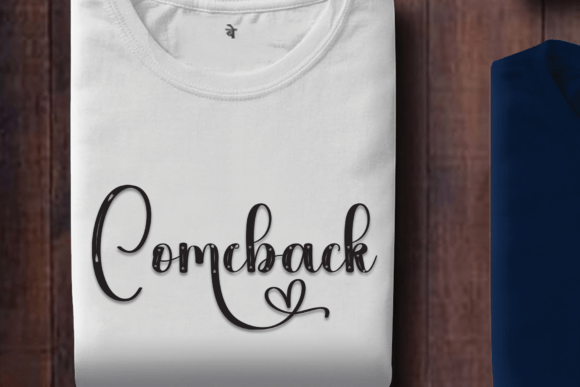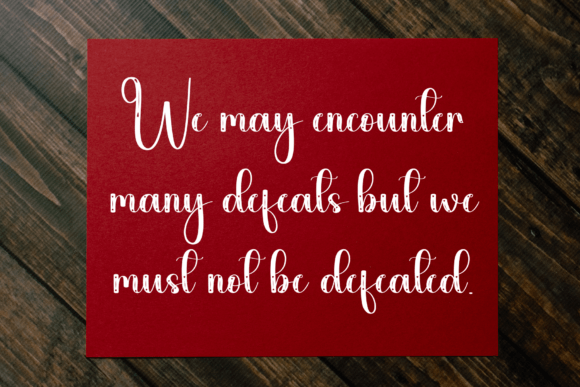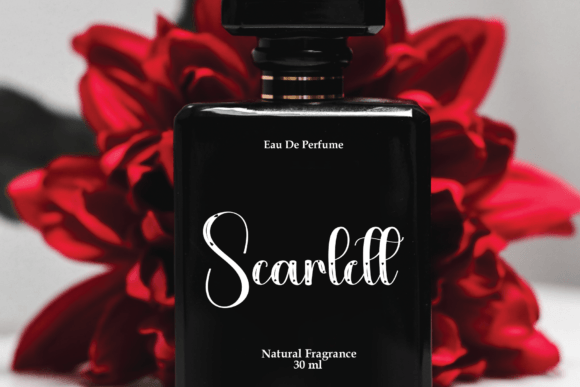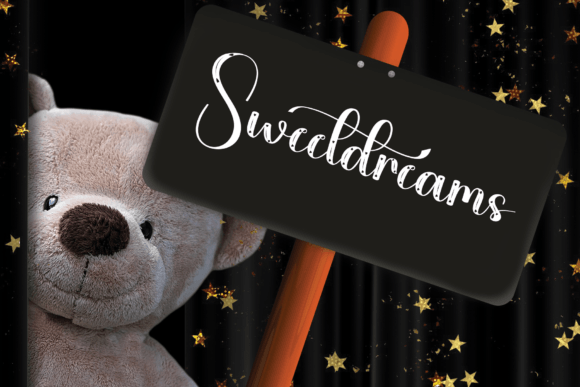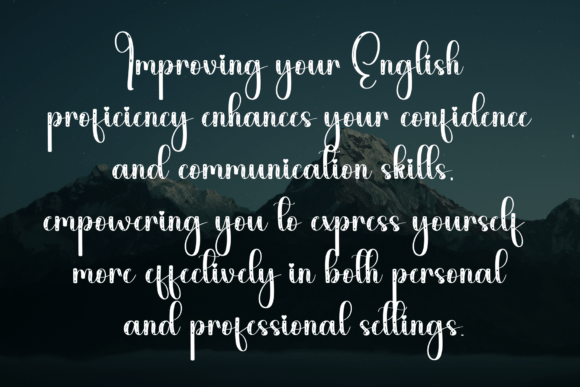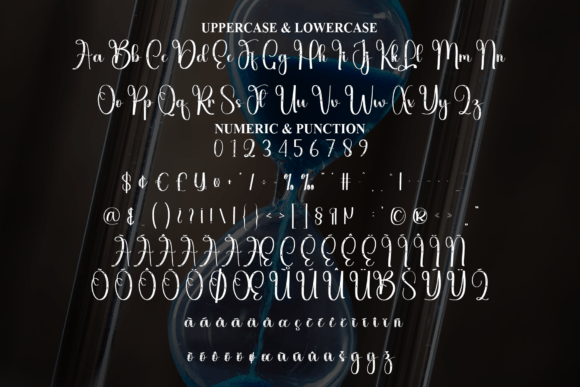
Introducing Countdown Font: The Perfect Blend of Elegance and Playfulness
Are you a designer or crafter looking for a font that can add a touch of sophistication and whimsy to your designs? Look no further than Countdown Font, a lovely handwritten script font that feels both elegant and playful. With its flowing, smooth lines, Countdown Font is perfect for creating beautiful designs like cards, logos, or invitations that require a personal and artistic touch.
The Characteristics of Countdown Font
Countdown Font is a unique and versatile font that boasts a range of characteristics that make it stand out from other fonts. Some of its key features include:
- Handwritten script style: Countdown Font has a beautiful, handwritten script style that gives it a personal and artistic feel.
- Elegant and playful: The font strikes the perfect balance between elegance and playfulness, making it suitable for a wide range of design projects.
- Flowing, smooth lines: The font’s flowing, smooth lines give it a beautiful, fluid feel that’s perfect for creating designs that require a touch of sophistication.
- Highly legible: Despite its elegant and artistic feel, Countdown Font is highly legible, making it suitable for use in a variety of design projects, from body text to headings.
Uses for Countdown Font
Countdown Font is a versatile font that can be used in a wide range of design projects, including:
- Cards and invitations: The font’s elegant and playful feel makes it perfect for creating beautiful cards and invitations for special occasions.
- Logos and branding: Countdown Font’s unique and artistic feel makes it an excellent choice for logos and branding projects that require a touch of sophistication.
- Stationery and packaging: The font’s flowing, smooth lines make it suitable for use in stationery and packaging design projects, such as letterheads, business cards, and product labels.
- Digital designs: Countdown Font can also be used in digital designs, such as social media graphics, blog headers, and website designs.
Tips for Using Countdown Font
To get the most out of Countdown Font, here are a few tips to keep in mind:
- Use it sparingly: While Countdown Font is a beautiful font, it’s best used sparingly to avoid overwhelming the design. Use it for headings or titles, and pair it with a simpler font for body text.
- Experiment with colors: Countdown Font looks beautiful in a range of colors, from bold and bright to soft and pastel. Experiment with different colors to find the perfect look for your design.
- Pair it with other fonts: Countdown Font pairs well with a range of other fonts, from simple sans serifs to elegant serifs. Experiment with different font combinations to find the perfect look for your design.
Countdown Font is a beautiful and versatile font that’s perfect for designers and crafters looking to add a touch of elegance and playfulness to their designs. With its flowing, smooth lines and highly legible style, Countdown Font is suitable for use in a wide range of design projects, from cards and invitations to logos and branding. Whether you’re a seasoned designer or just starting out, Countdown Font is a great addition to any design toolkit.